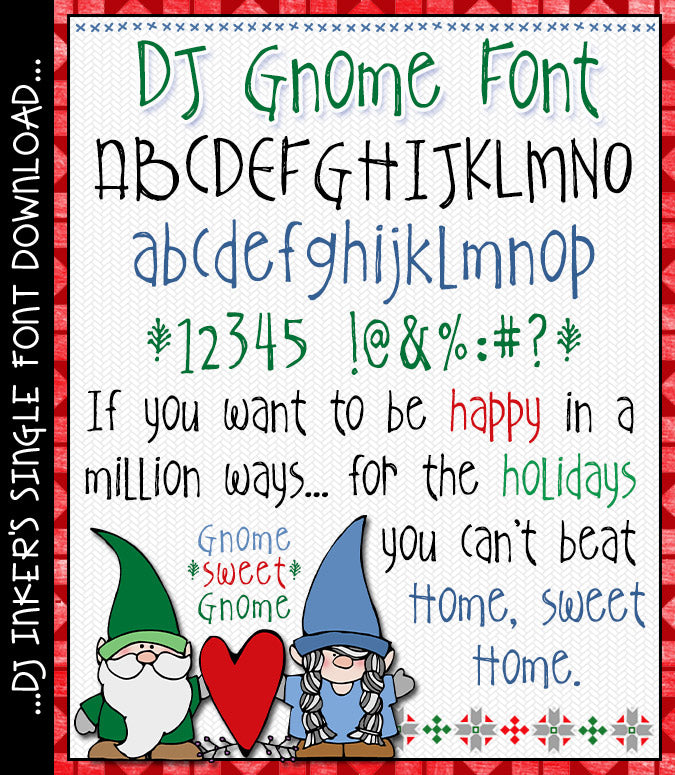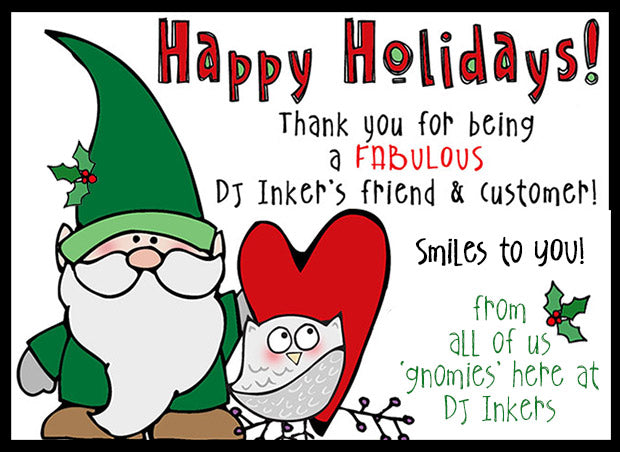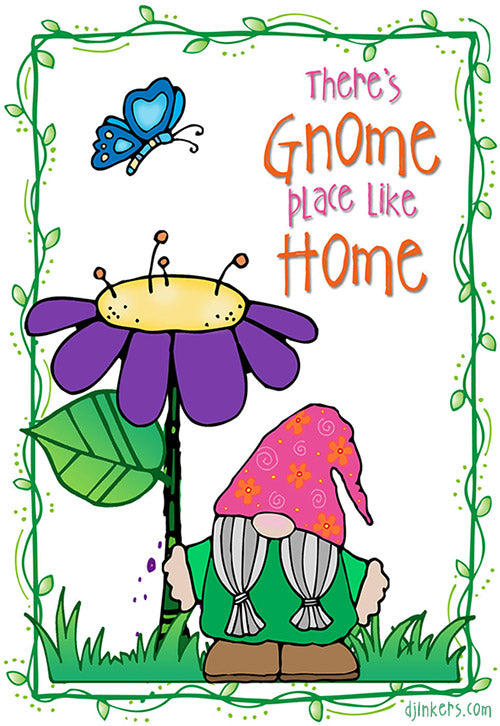
DJ Gnome Font Download
You'll feel right at home typing-up smiles when you use our DJ Gnome font!
This enchanting hand-drawn lettering is packed with personality & texture.
Fun for the holiday season or a woodsy texture any time of year.